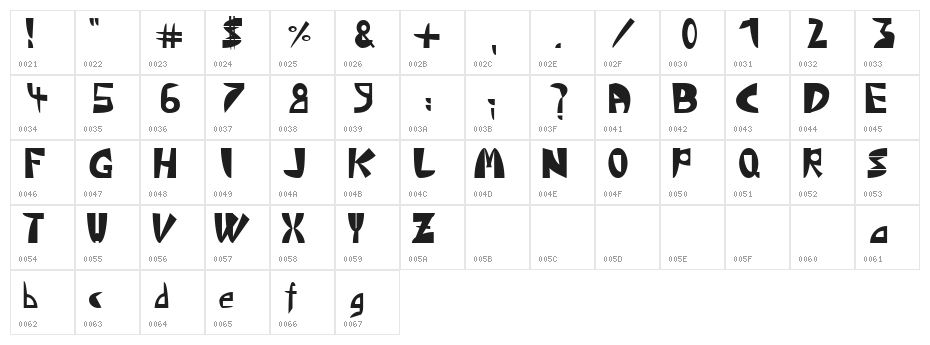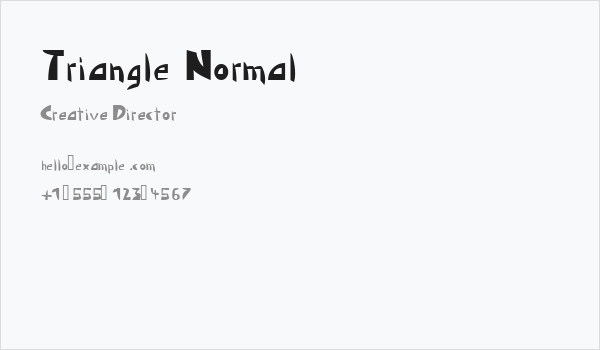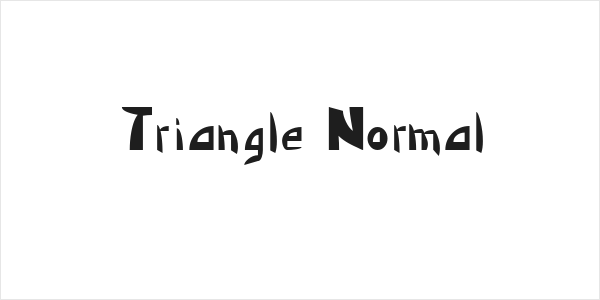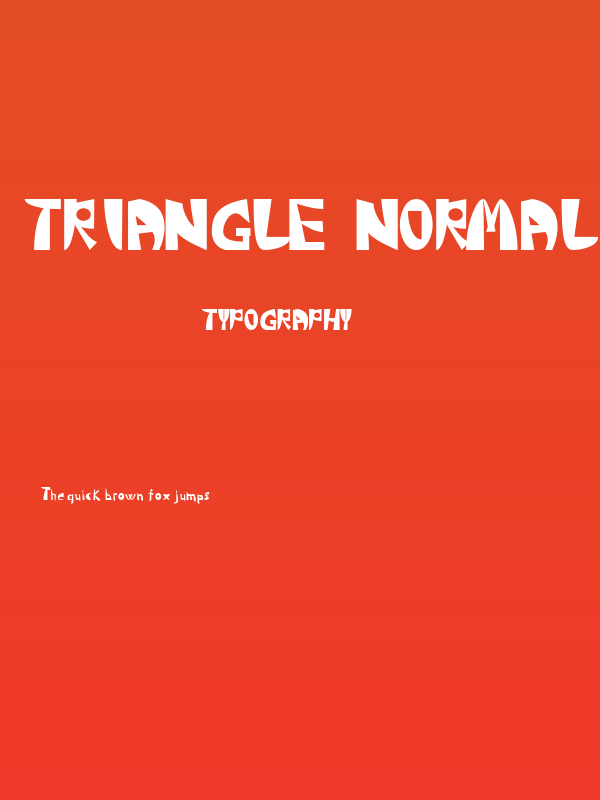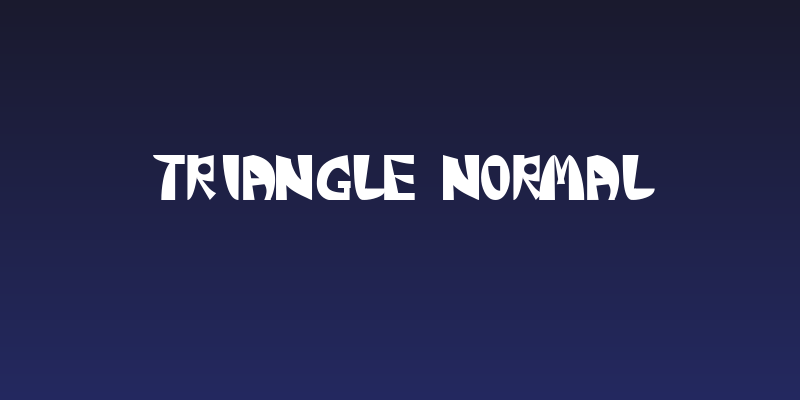
Triangle Normal Font
Triangle Normal Description
This font features a bold and dynamic style with a geometric influence, characterized by sharp angles and triangular shapes. The uppercase letters are particularly striking, with each character exhibiting a unique and artistic flair. The lowercase letters maintain the same angular theme, providing a cohesive look across the alphabet. Numbers and special characters follow suit, offering a consistent design language. The font's boldness and distinctive appearance make it suitable for attention-grabbing designs.
| Proposed Projects | Ideal for posters, logos, and branding projects that require a bold and artistic touch. |